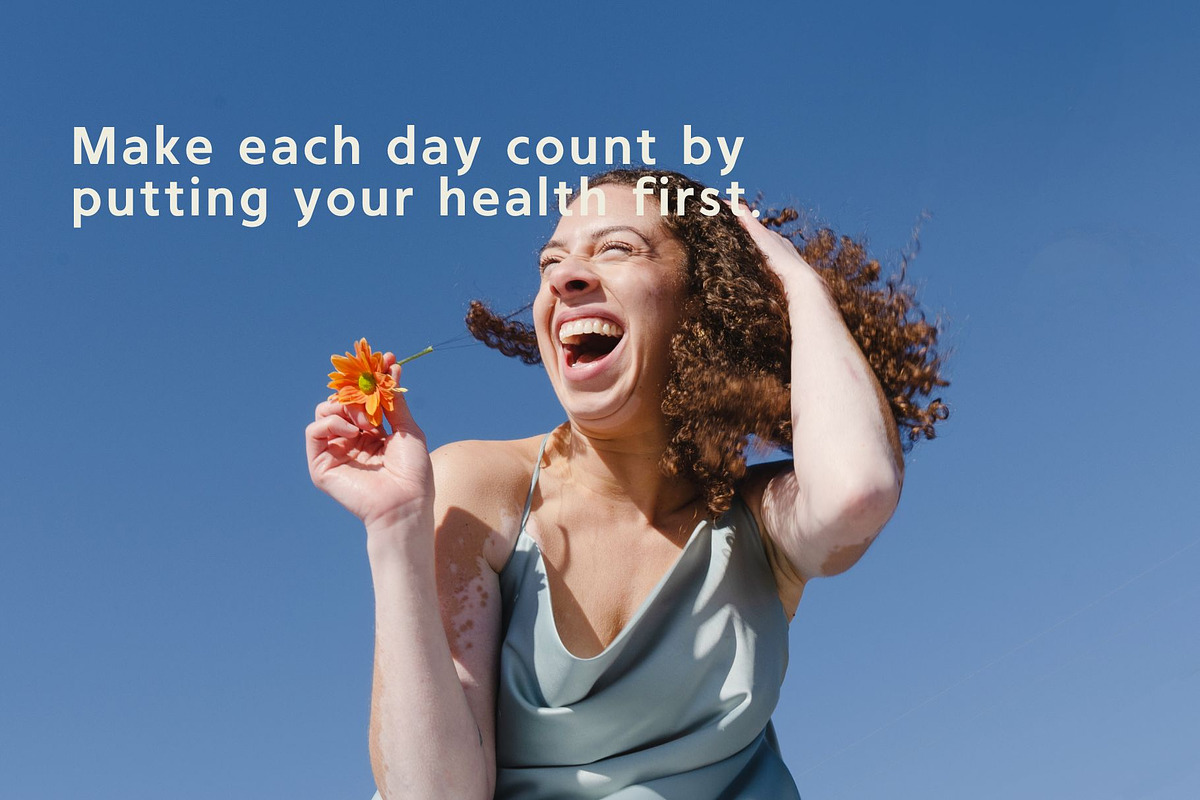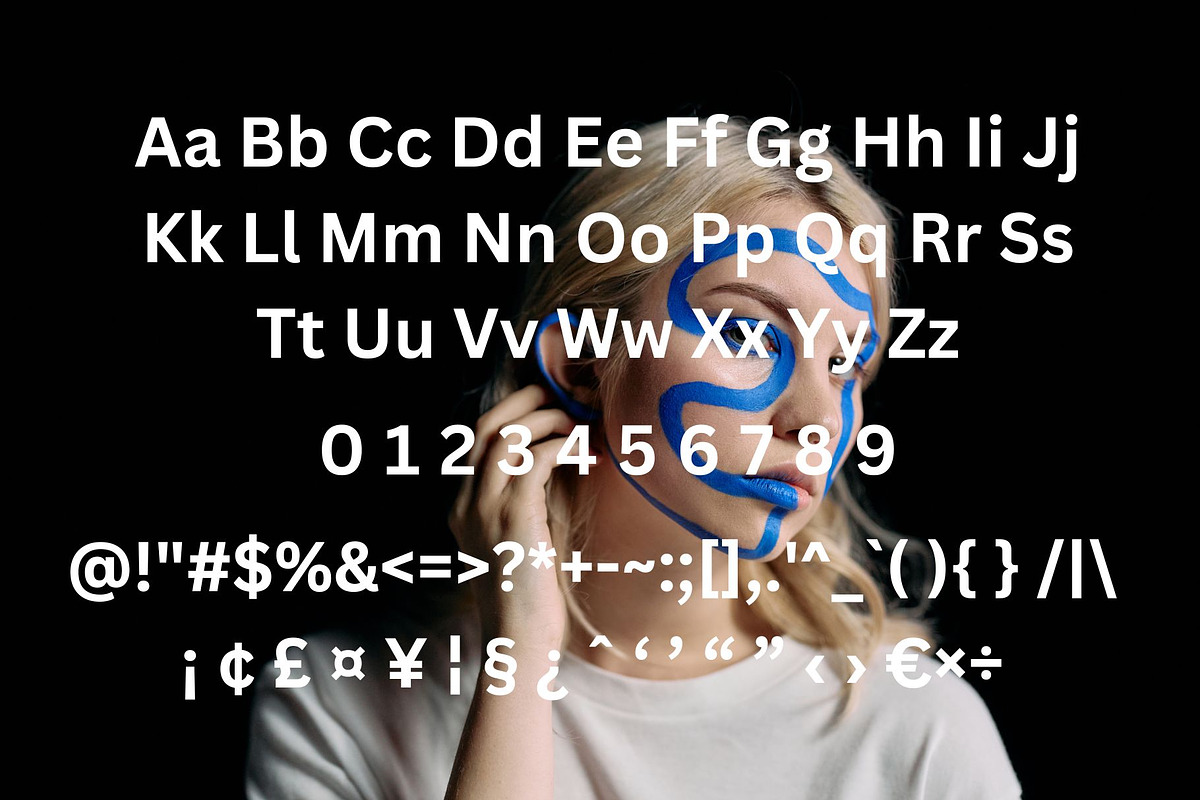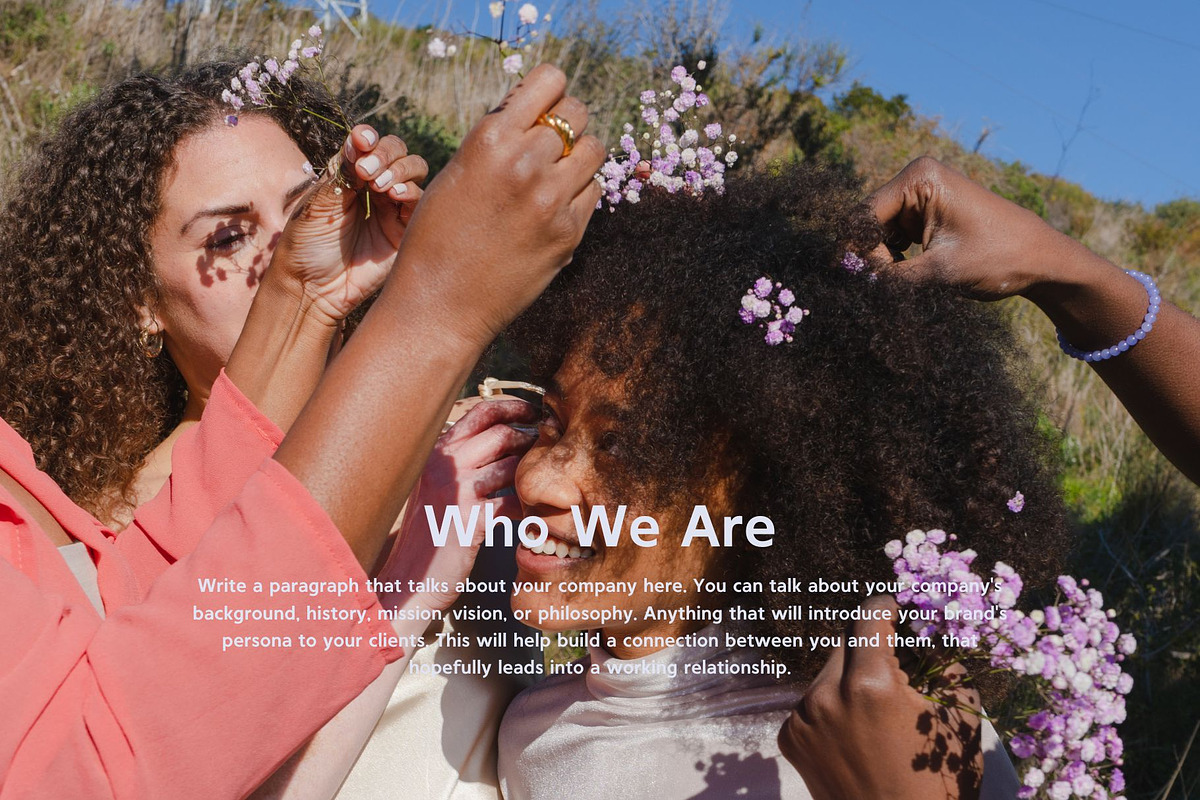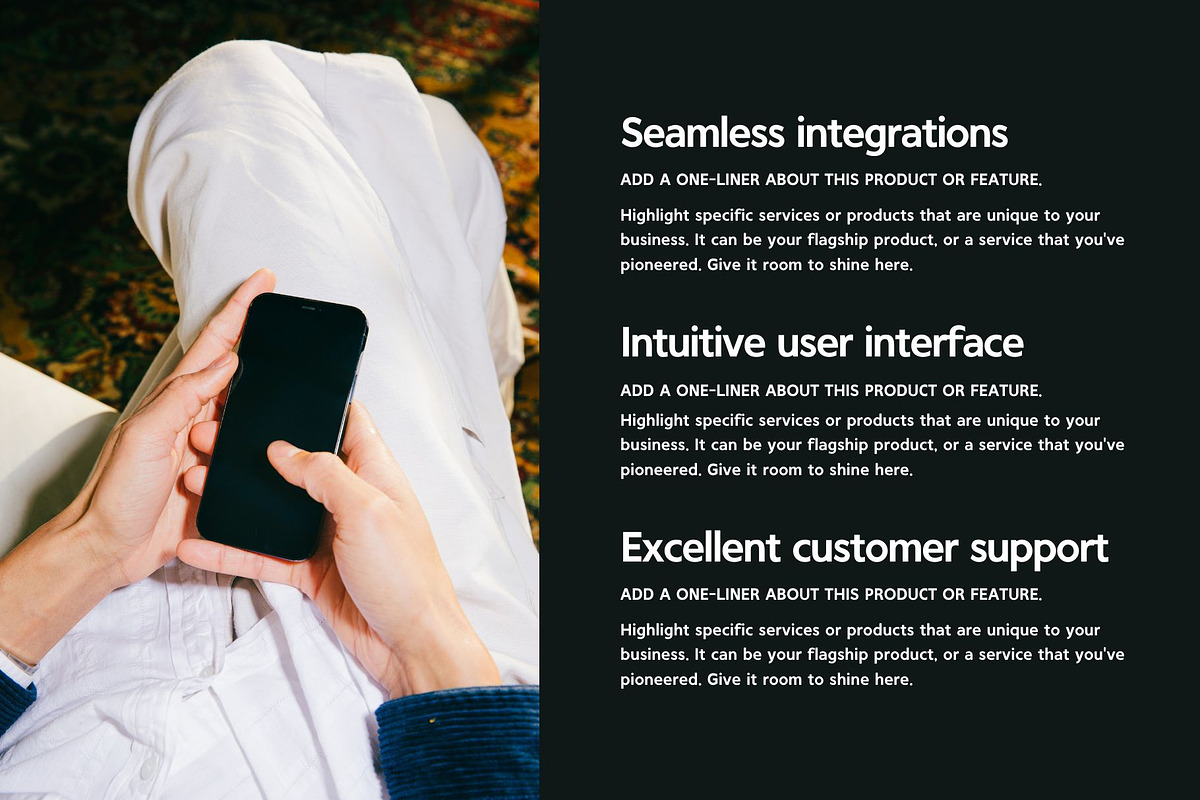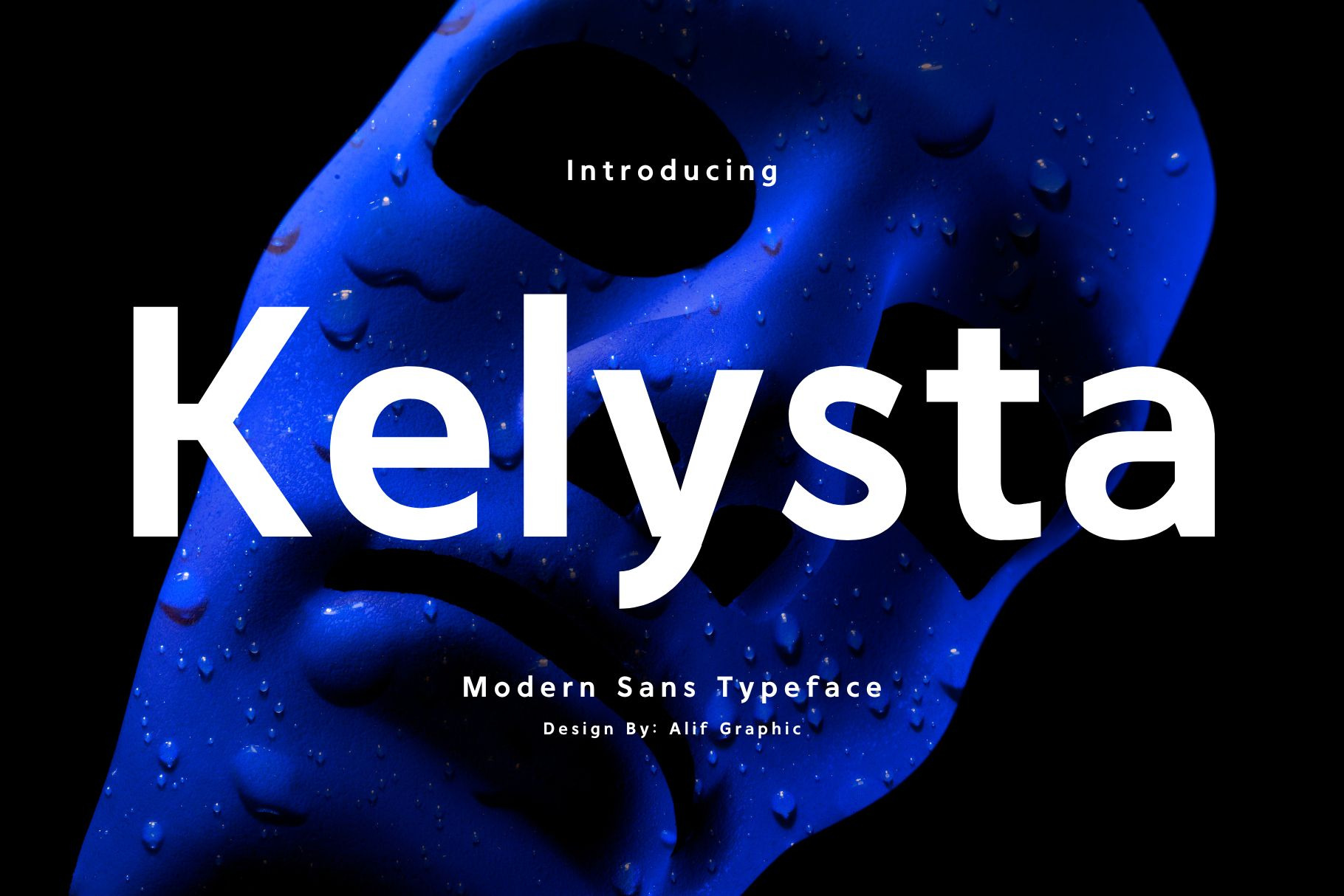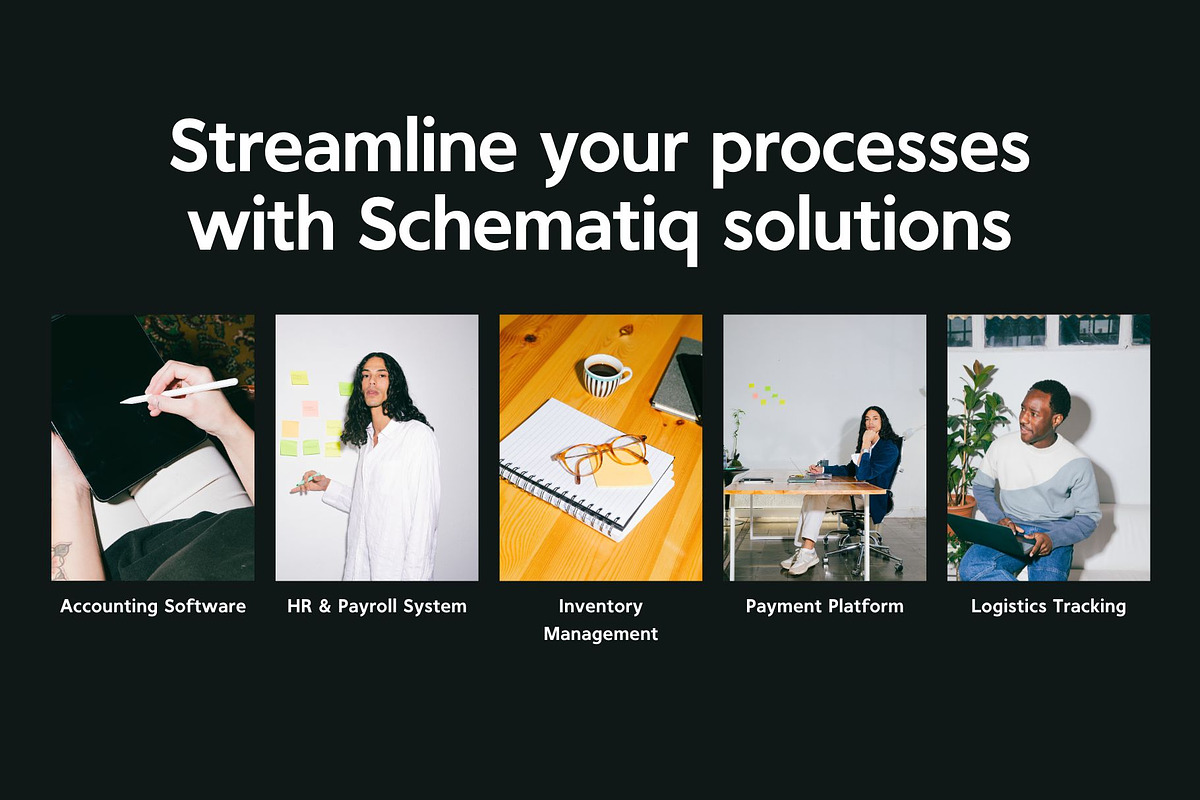
Kelysta - Modern Sans Typeface
Introducing 'Kestila' Font:
Meet "Kelysta" – an exquisite sans serif font seamlessly marrying simplicity and elegance. Boasting clean lines and a contemporary allure, Kelysta is a versatile typeface, perfect for a myriad of design applications. Whether you're creating a polished logo, refined headlines, or minimalist branding, Kelysta effortlessly injects a touch of sophistication into your typography. Elevate your designs with this effortlessly chic sans serif font, where beauty seamlessly intertwines with clarity.
Ideal for:
- Modern Designs
- Web Design Projects
- Advertising Campaigns
- international correspondence
- Social Media Designs
- Personal Branding
- Ready for Creative Expression
- Immaculately Crafted Letters